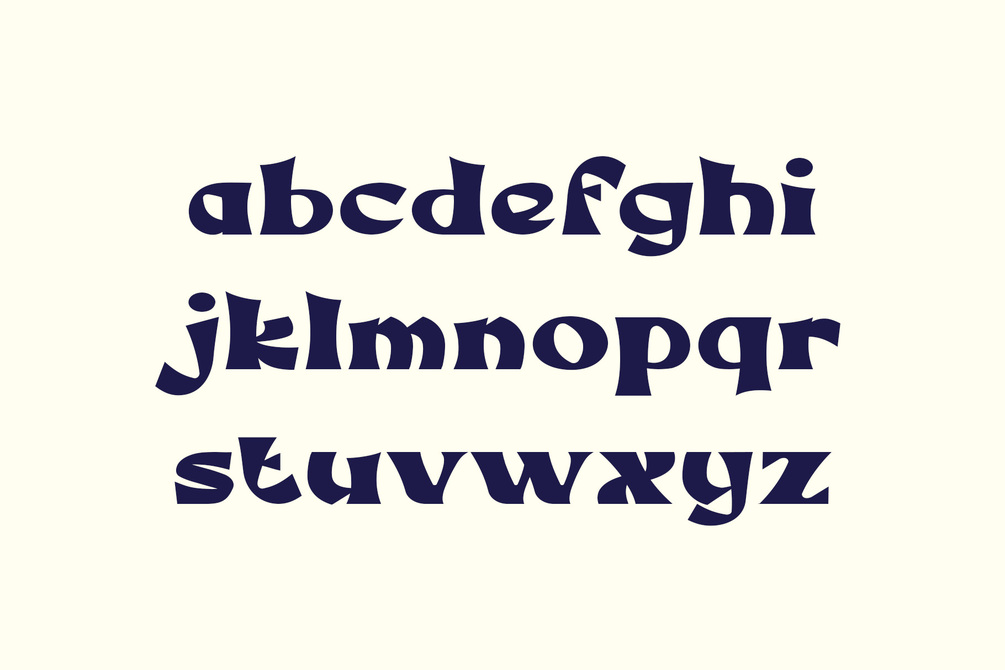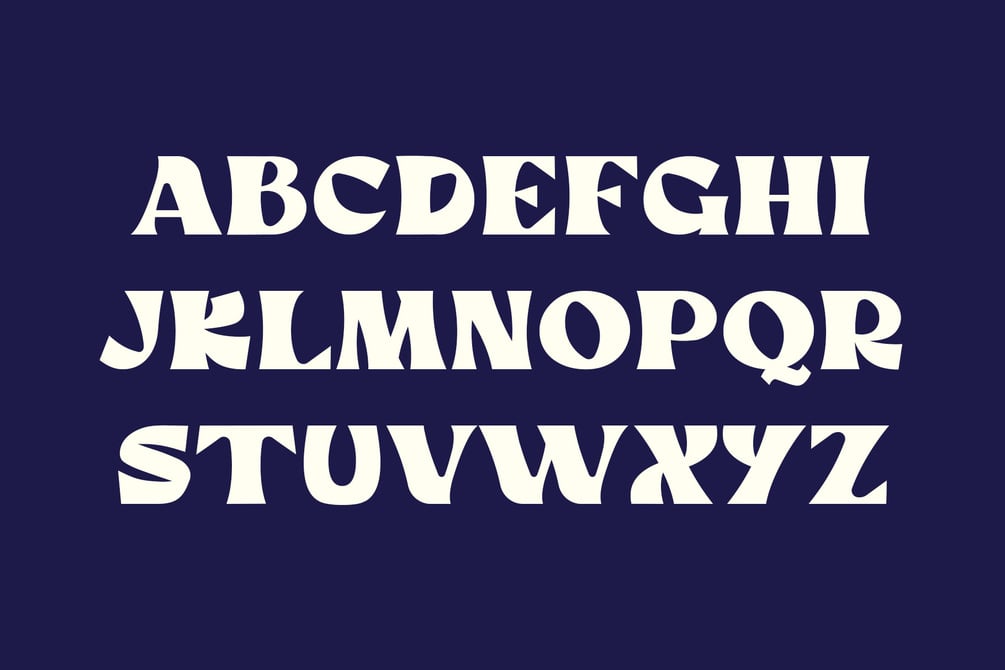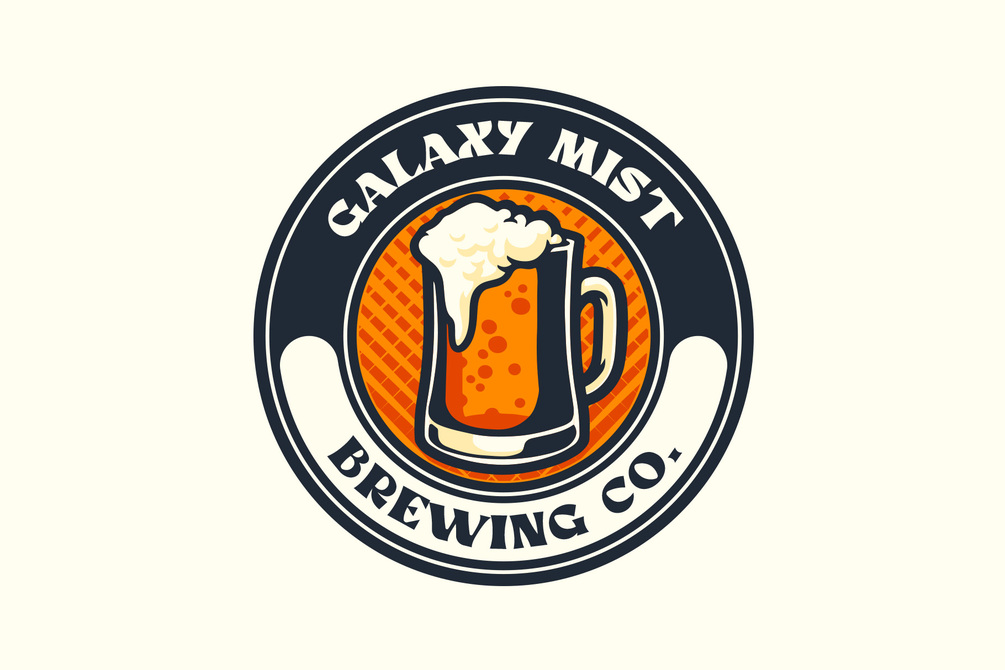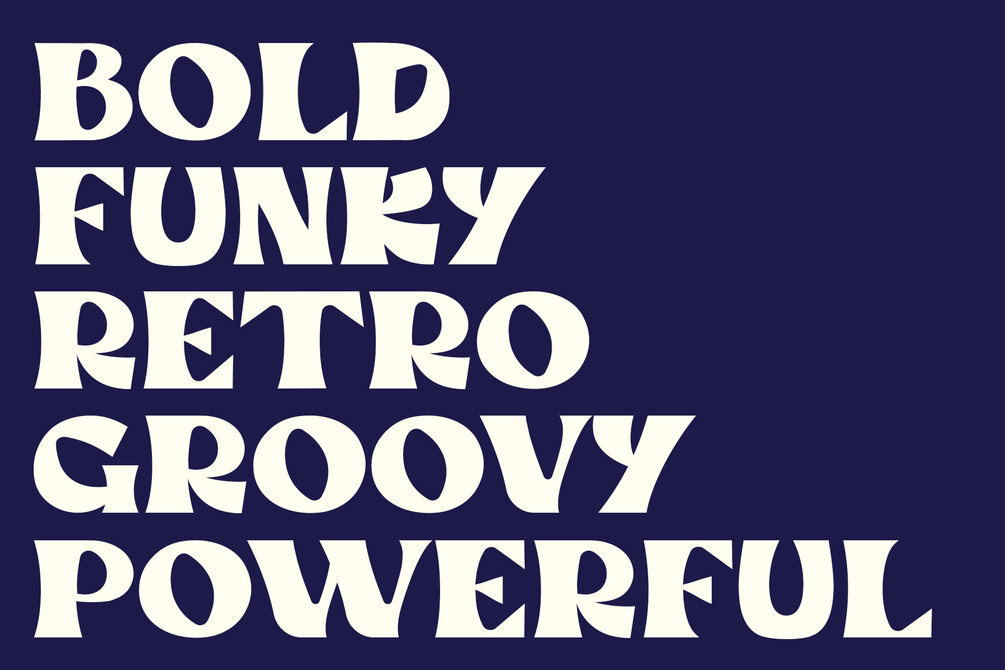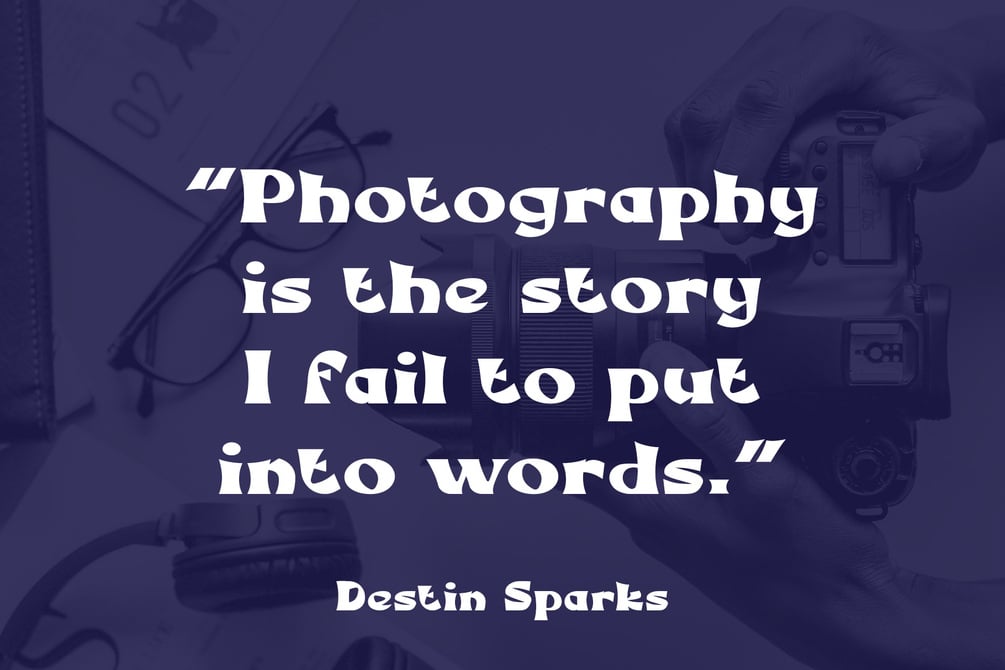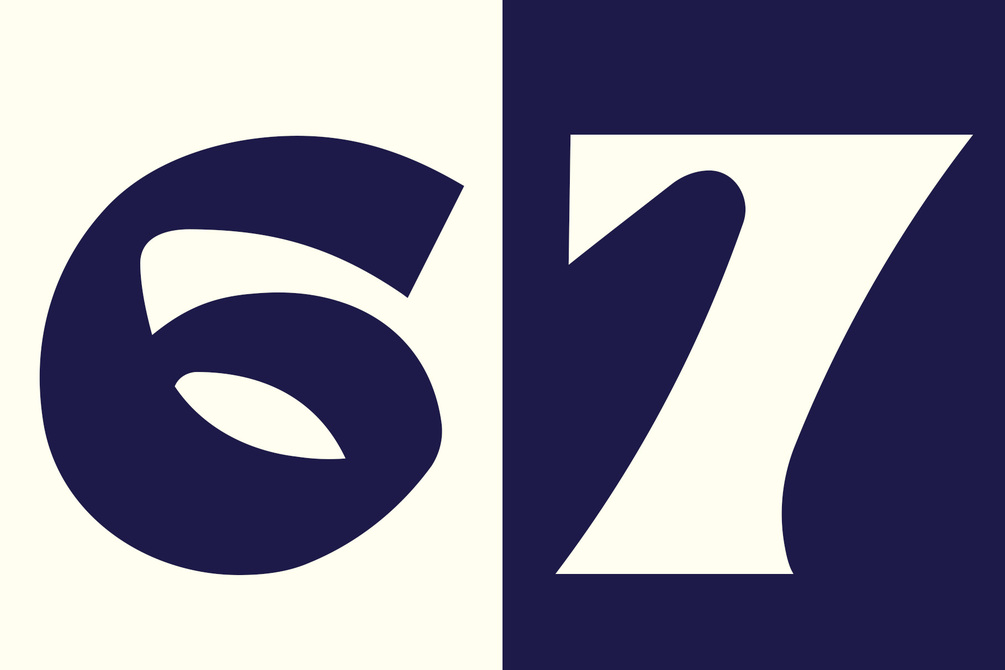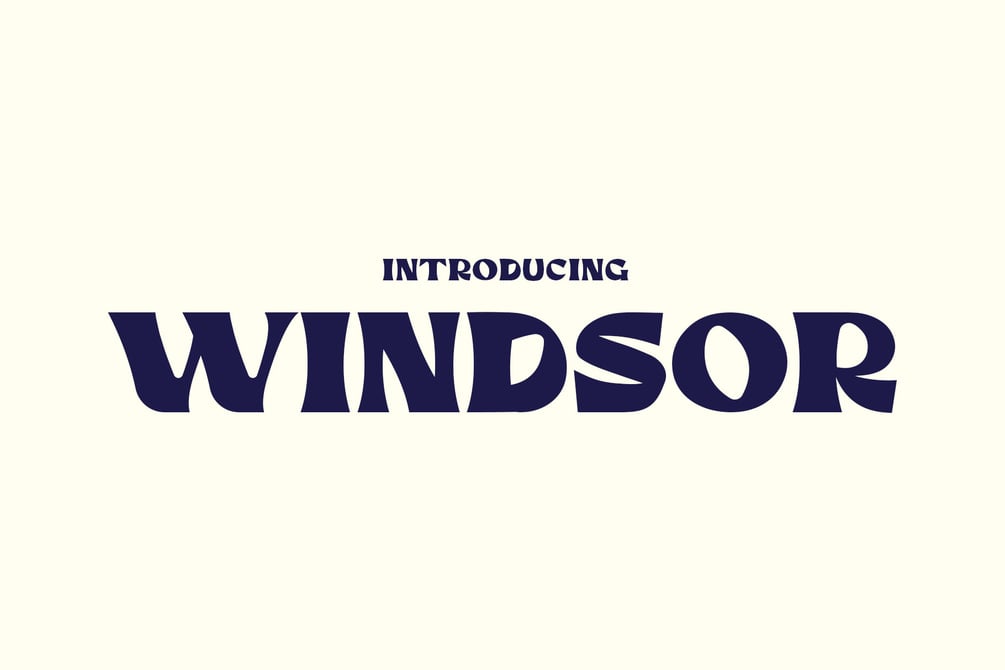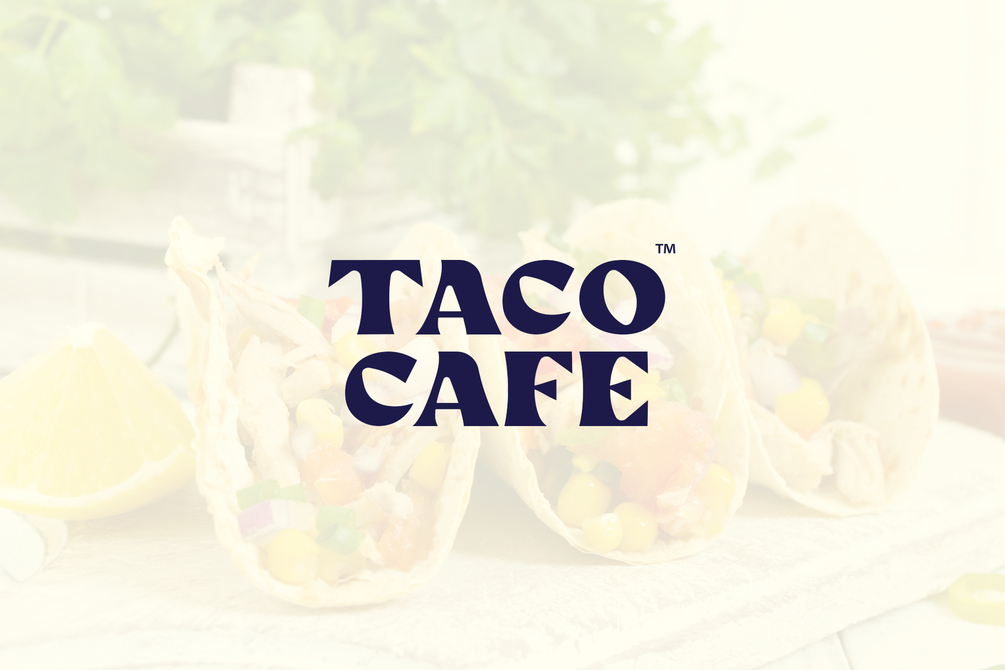
Windsor
Windsor is a groovy typeface ideal for gig posters, magazines, bucket hats, enormous stickers, bachelor parties, postcards, taco joints, fishing charters, dive bars, shell shops, and business retreats.
With Windsor you can effortlessly create eye catching designs. Enjoy!